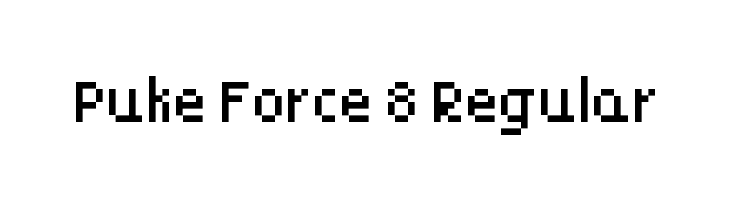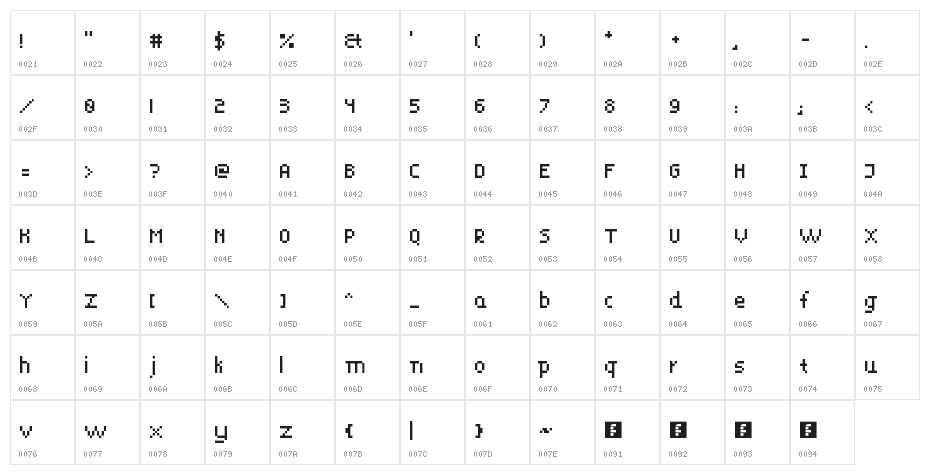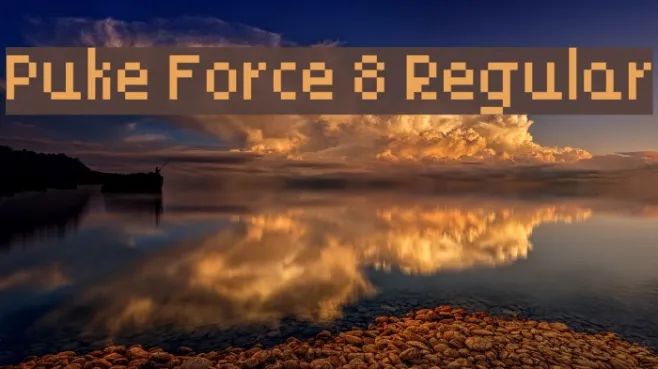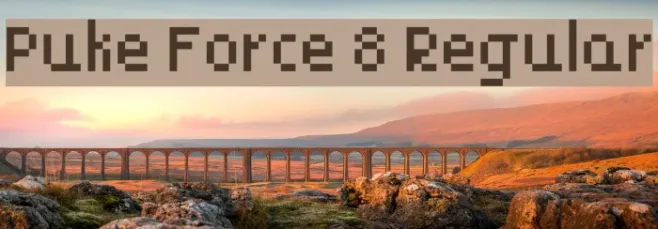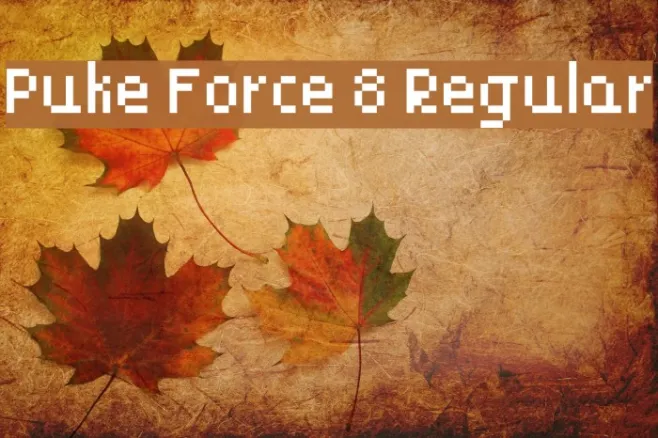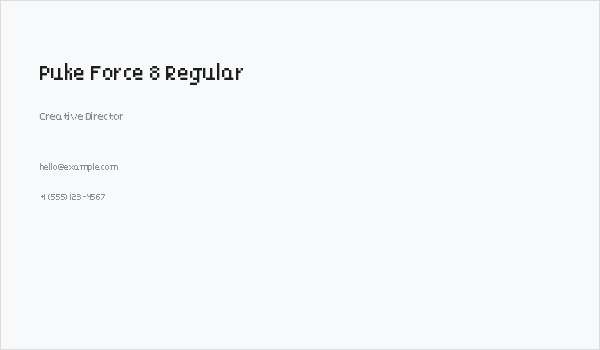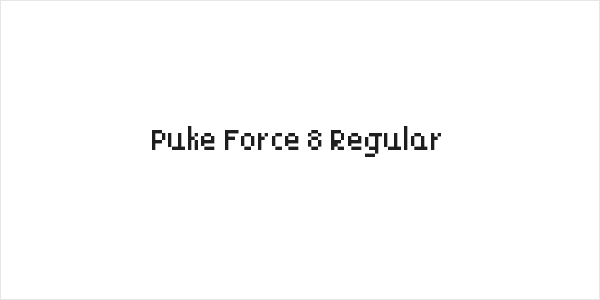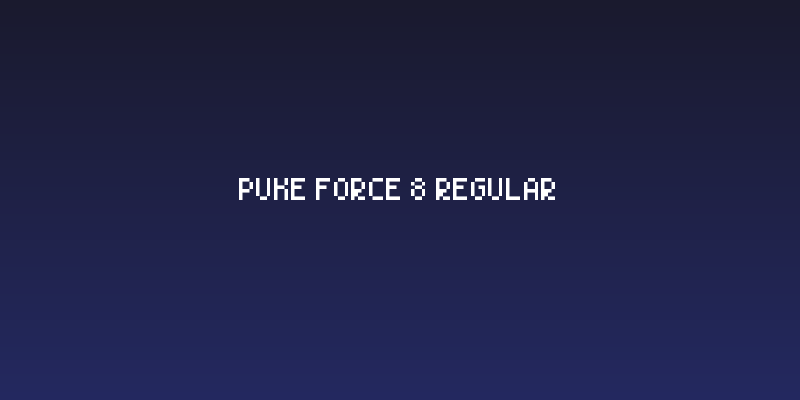
Puke Force 8 Regular Font
Puke Force 8 Regular Description
This font features a pixelated, blocky design reminiscent of early digital displays and retro video games. Each character is constructed with a uniform grid-like structure, giving it a distinctly geometric and mechanical appearance. The uppercase and lowercase letters maintain a consistent height, contributing to a monospaced feel. The numerals and special characters are equally pixelated, ensuring a cohesive look across all glyphs. This font's style is ideal for projects that aim to evoke nostalgia or a digital aesthetic, such as video game graphics, tech-themed designs, and retro-inspired artwork.
| Use Case | Logos, Headlines, Digital displays |
| Proposed Projects | Ideal for retro video games, tech-themed designs, digital art, and nostalgic projects. |